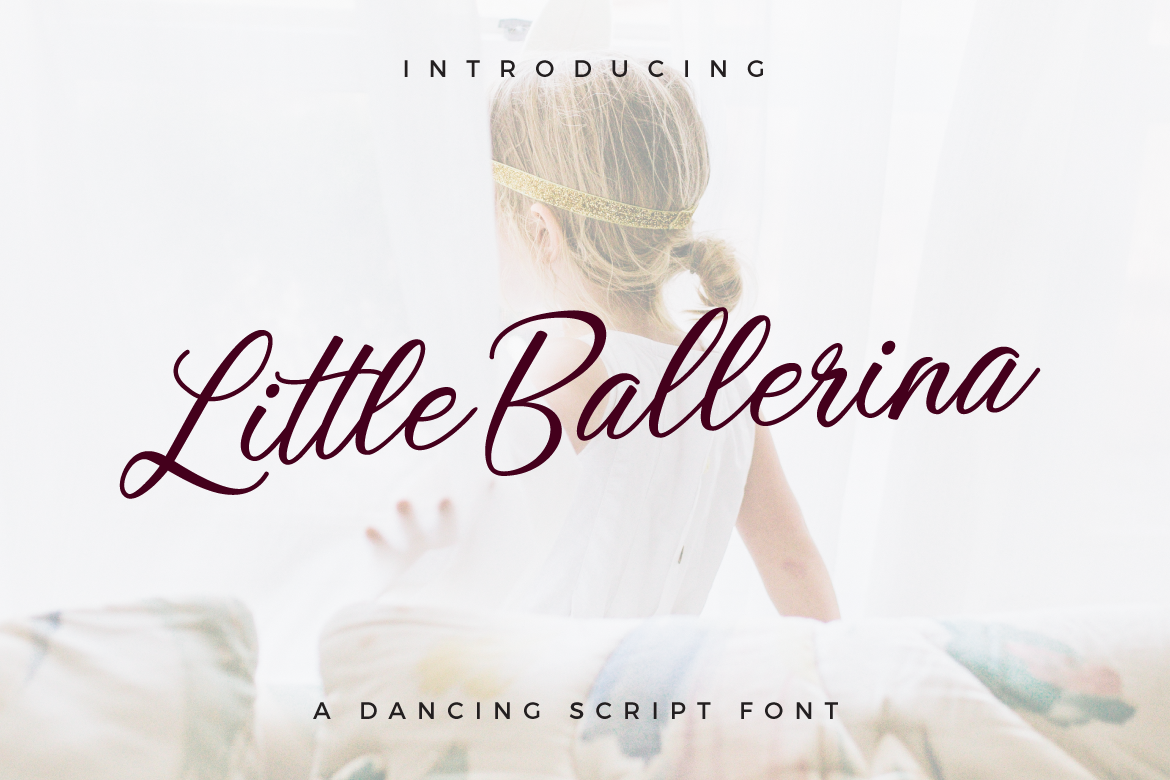
Little Ballerina is a dancing beauty calligraphy / script font.
It is suitable for any design needs, modern invitation design, branding, blog design, modern advertising design, invitation, Art Quote, Home decor, Book/Cover Title, Invitation, special events, birthday, custom mug, pillow, t-shirts, any brush lettering needs and more.
Little Ballerina